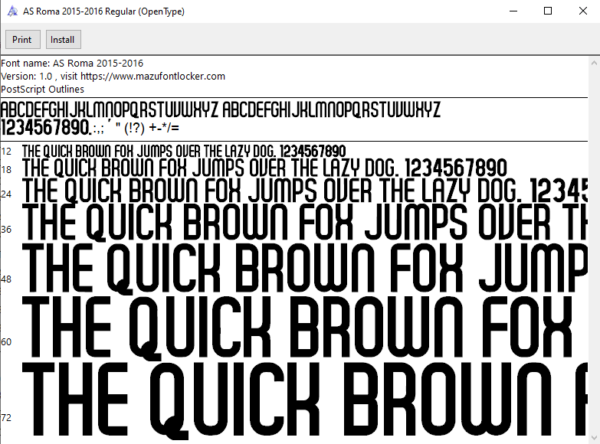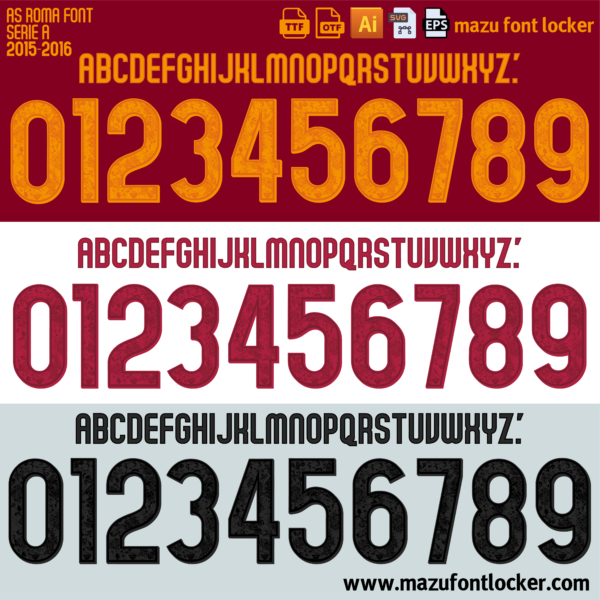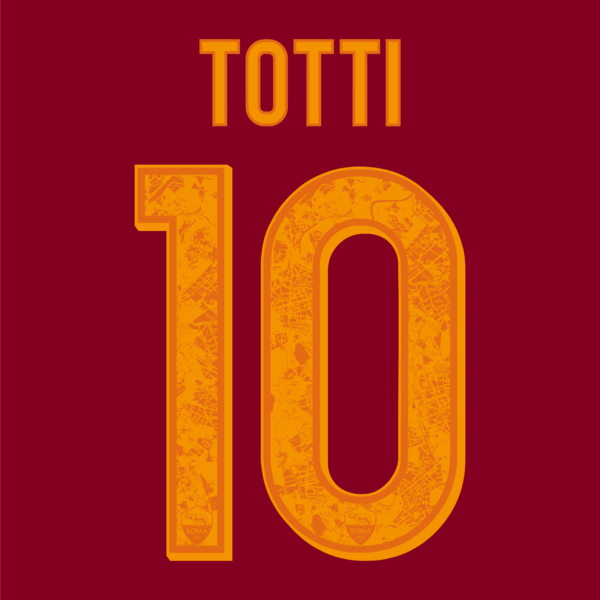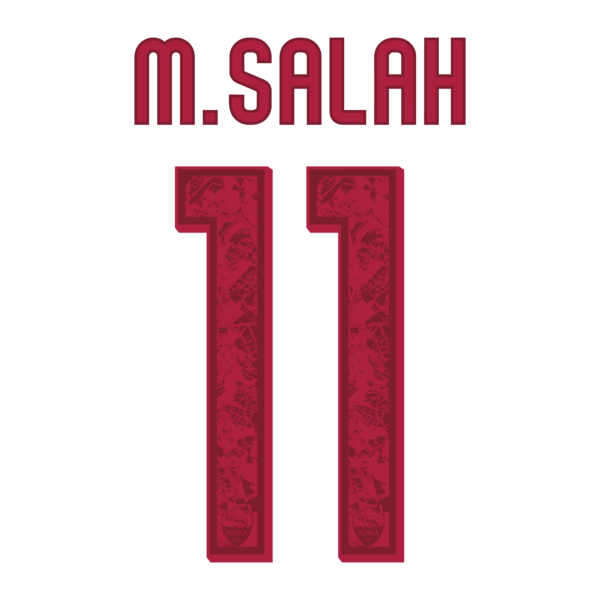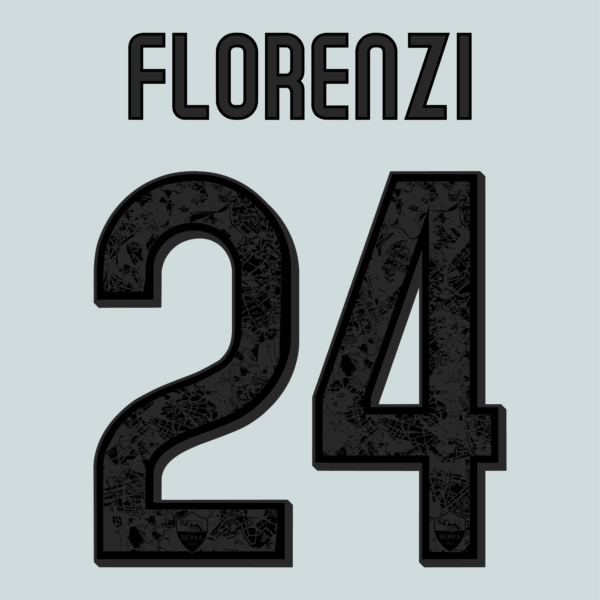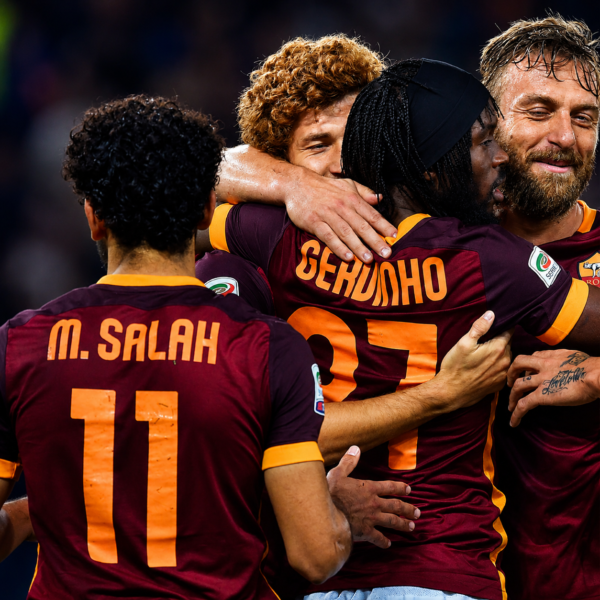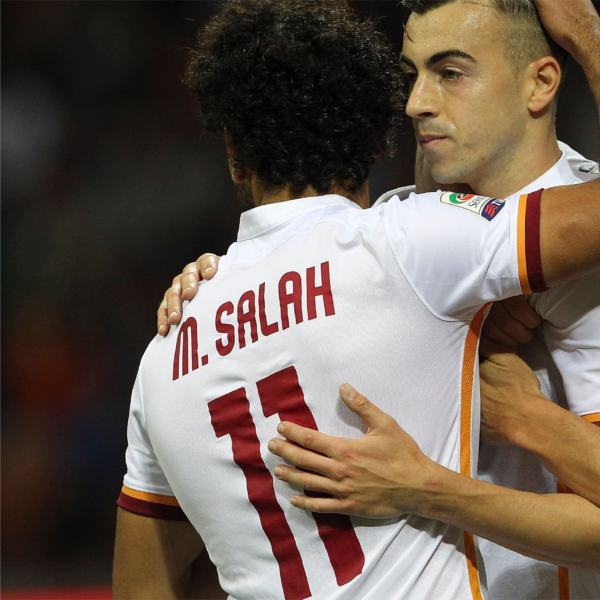
AS Roma 2015-2016 Font Vector – Legendary Giallorossi Masterpiece
Download AS Roma 2015-2016 Font now and experience the golden era of the mighty Giallorossi with unmatched passion and Roman glory. This premium AS Roma 2015-2016 Font perfectly captures the bold, elegant, and commanding typography from one of the most memorable seasons in recent club history.
Designed with razor-sharp precision, AS Roma 2015-2016 Font radiates pure power, fierce determination, and the legendary spirit of Francesco Totti and the squad that fought with heart and pride. Every letter and number reflects the vibrant red and yellow identity, relentless attacking style, and unbreakable Roman willpower that electrified the Stadio Olimpico.
AS Roma 2015-2016 Font Vector
The AS Roma 2015-2016 Font is a premium, high-precision football jersey font vector meticulously engineered to capture the fearless dominance, explosive passion, and electrifying identity of AS Roma’s legendary 2015-2016 era.
Inspired by the mighty Giallorossi and their iconic, high-intensity performances throughout the unforgettable 2015-2016 season, this font unleashes a bold, majestic, and devastatingly powerful presence that radiates unbreakable Roma pride, rich heritage, and unstoppable champion spirit. Every letter and number has been painstakingly recreated with razor-sharp precision to embody the vibrant red and yellow identity, relentless attacking mentality, and glorious legacy that makes AS Roma one of the most passionate and feared forces in European football.
Feel the fire of the Stadio Olimpico. Ignite the passion. Unleash the legendary spirit of the Giallorossi and the unstoppable power of AS Roma 2015-2016.
🔥 AS Roma 2015-2016 Font Features
• Authentic 2015-2016 AS Roma jersey lettering style
The authentic lettering style helps recreate the classic look of the AS Roma 2015-2016 kit with professional accuracy.
Unlike generic jersey fonts, this set is designed with a strong focus on authenticity and accuracy. Every detail is based on the original match lettering style used during the AS Roma 2015-2016, helping designers and collectors create realistic football shirt designs.
This AS Roma 2015-2016 font vector set is designed for authentic football jersey customization and works perfectly for retro football projects, collector designs, and professional sportswear artwork.